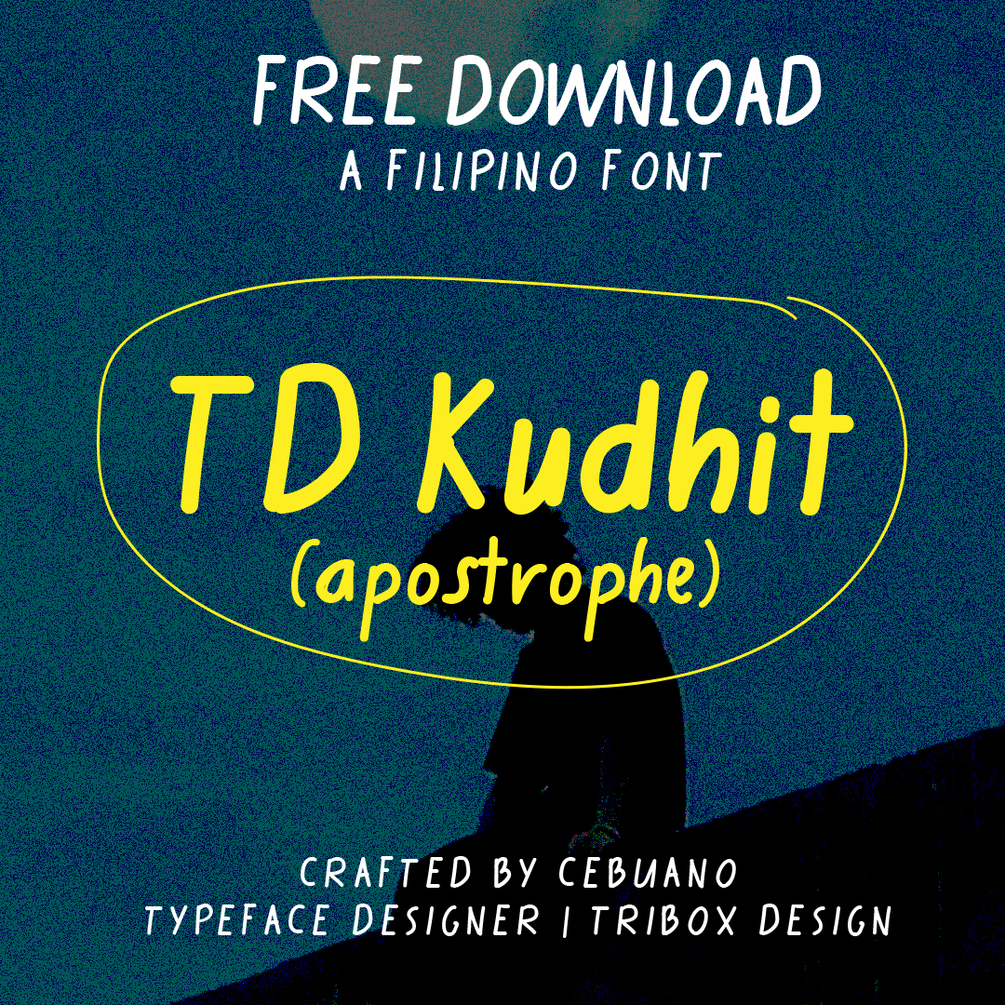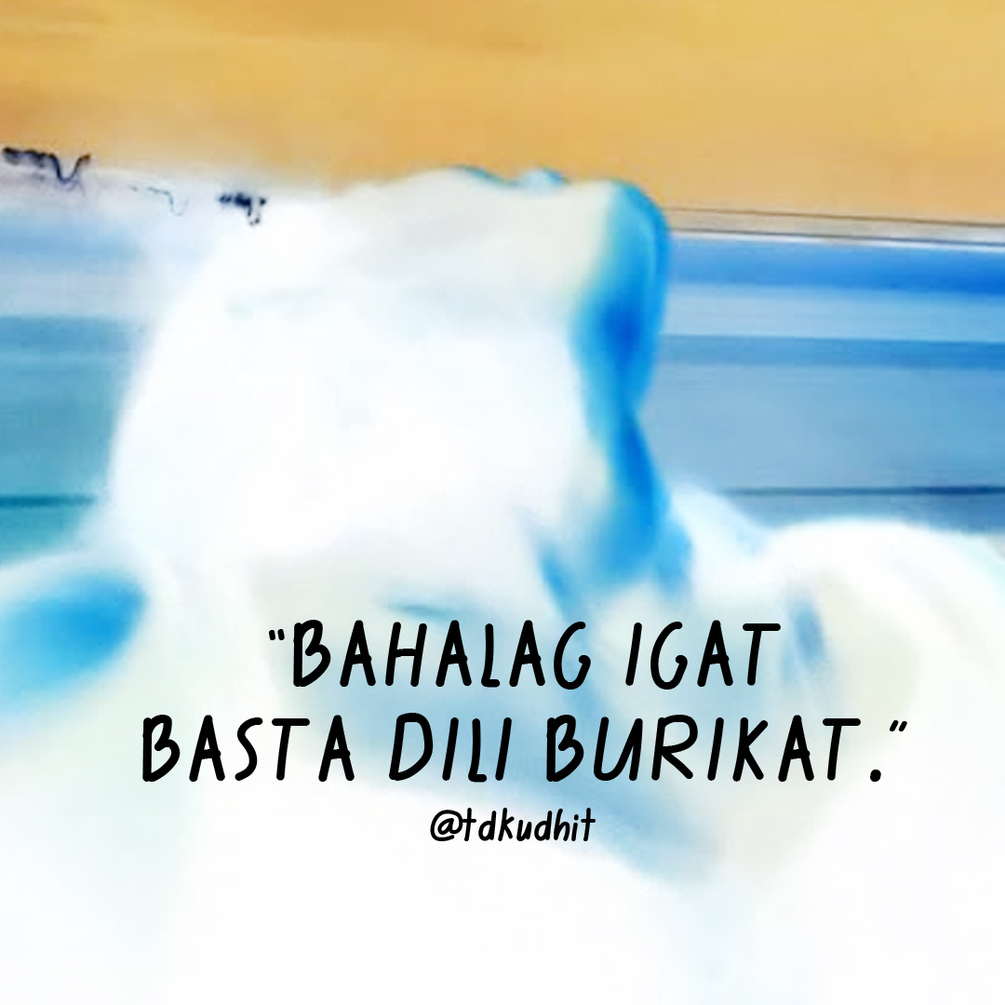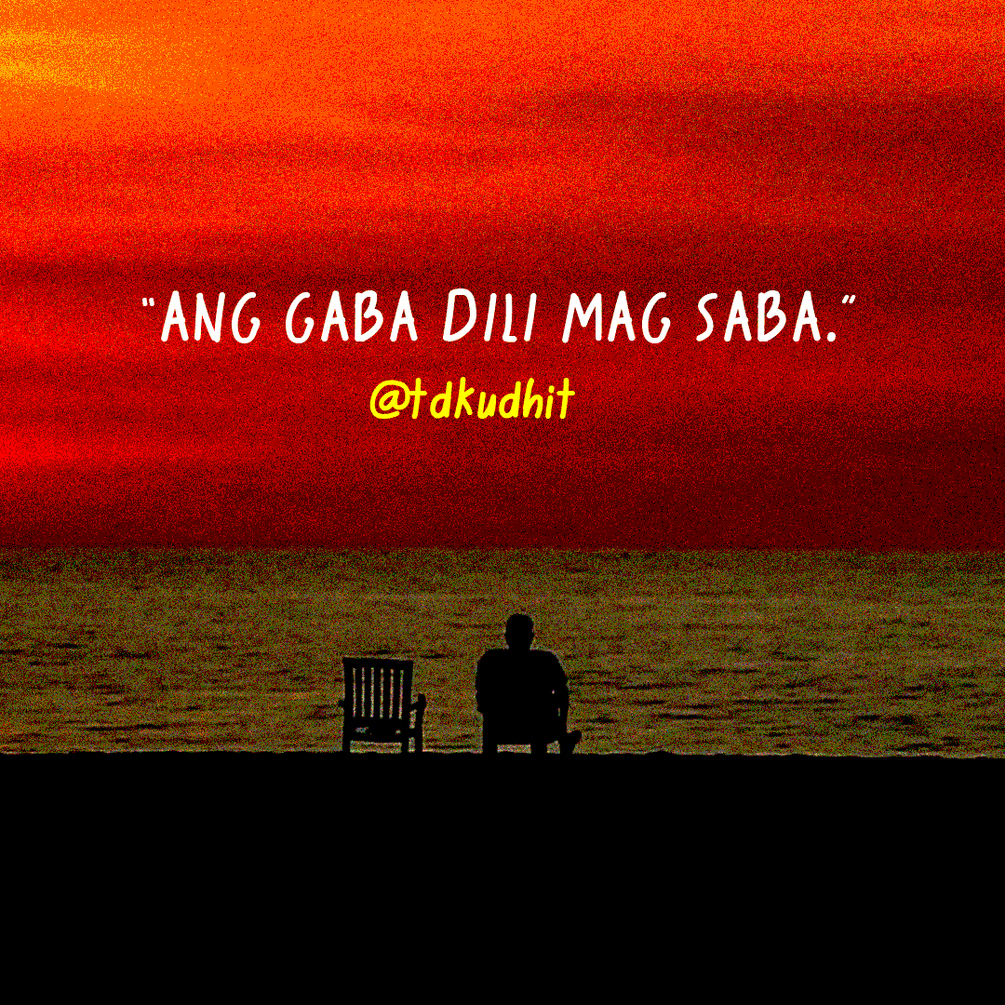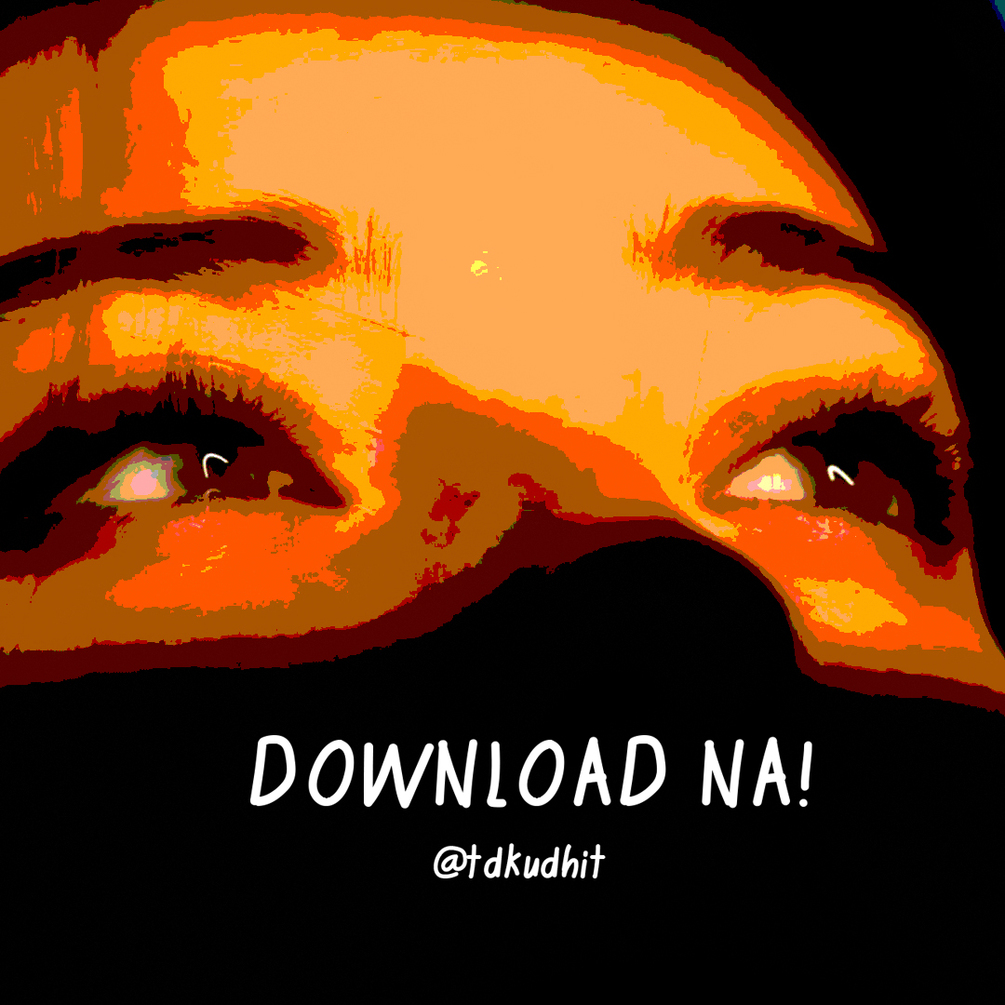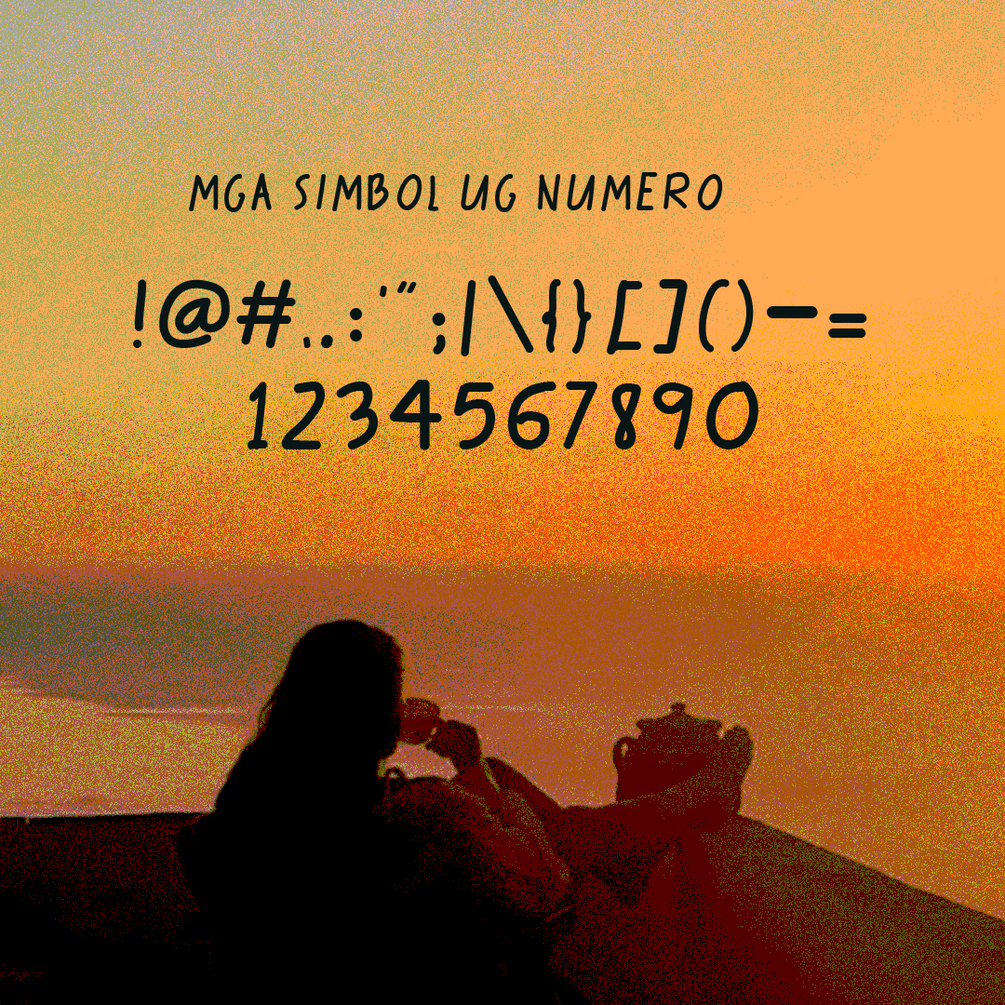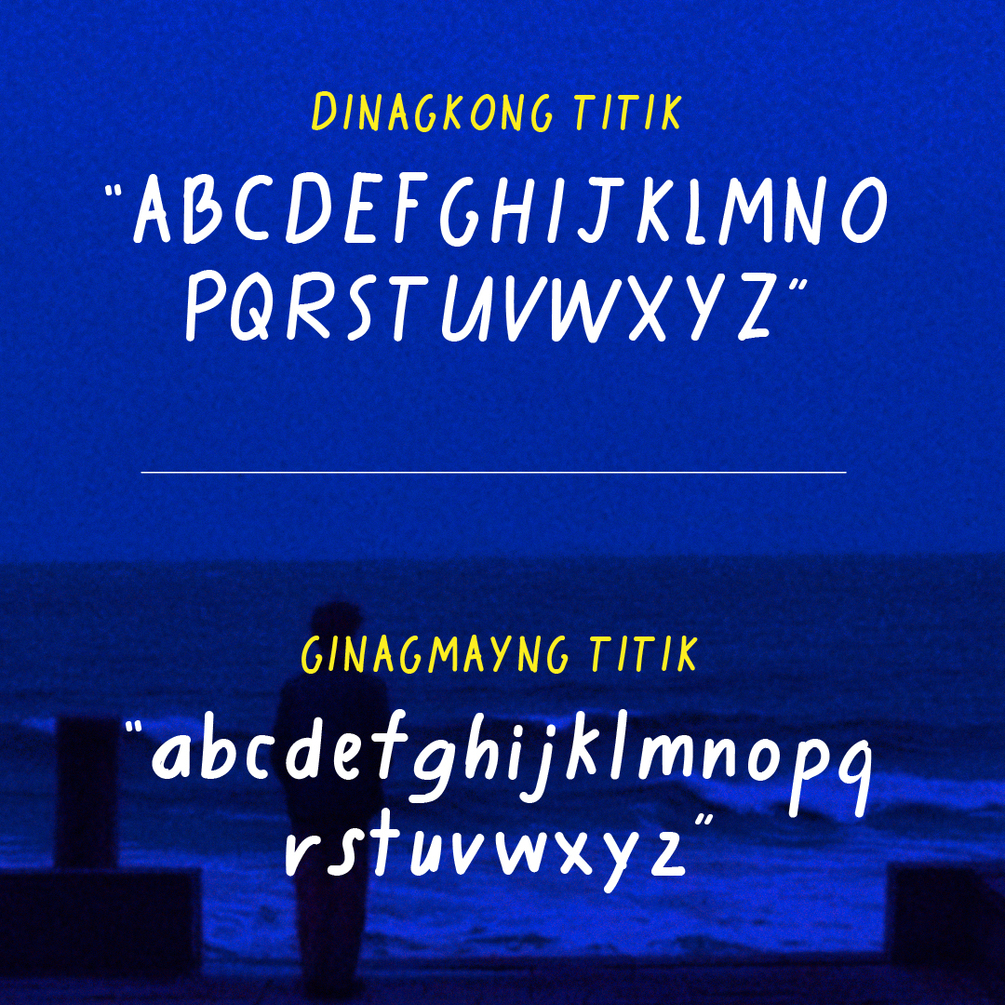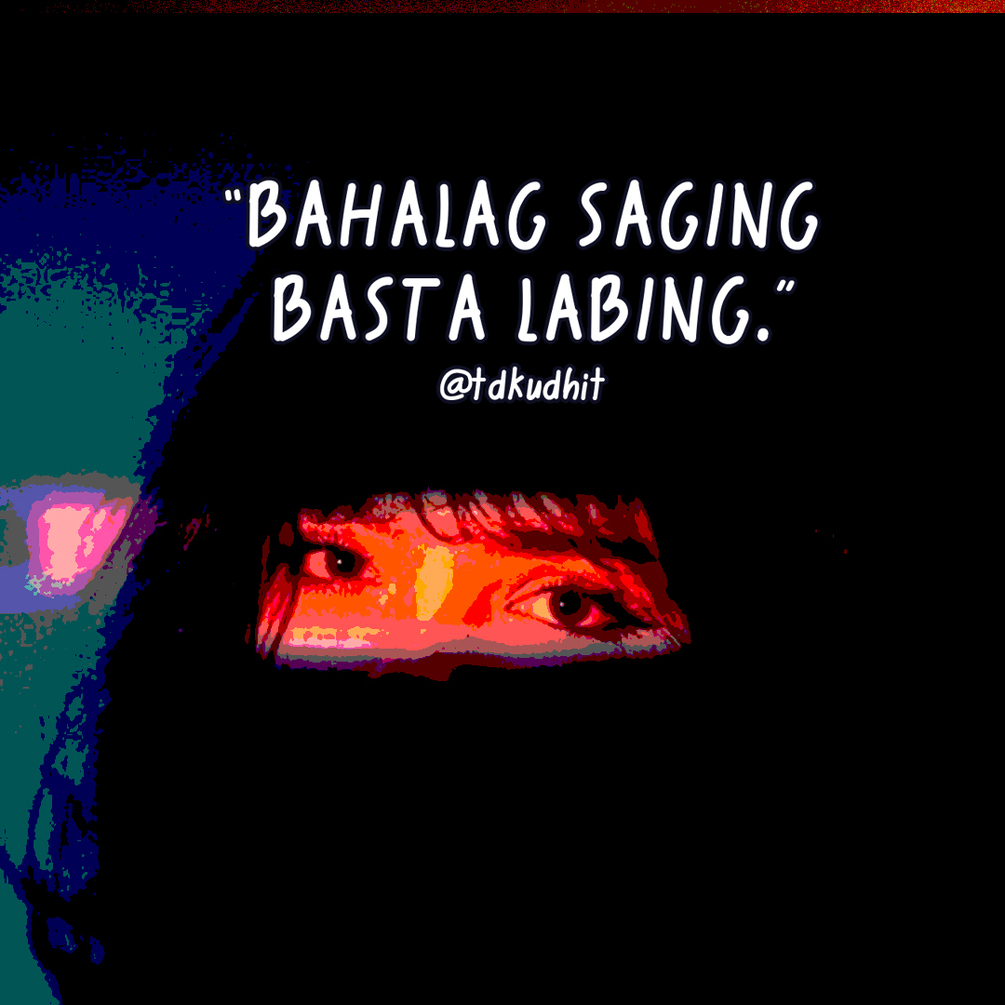
TD Kudhit
TD Kudhit is a personal handwritten font by a Cebuano designer. Inspired by Comic Sans, this font is friendly and casual—just like your own handwritten binolde style.
Perfect for quotes, sayings, and posters.